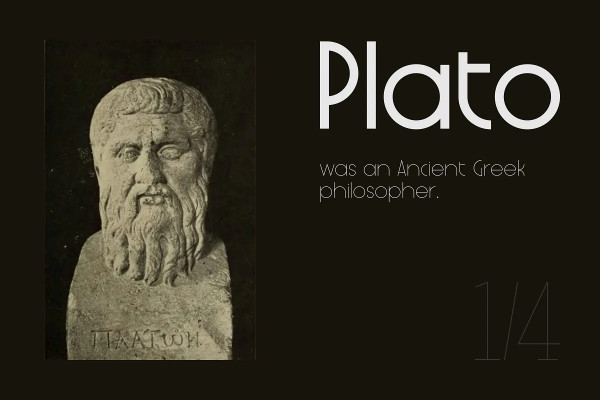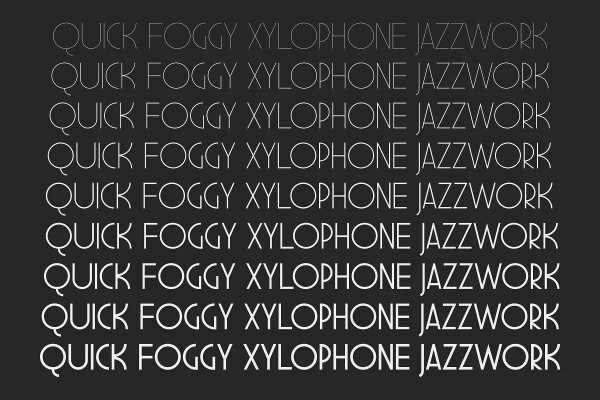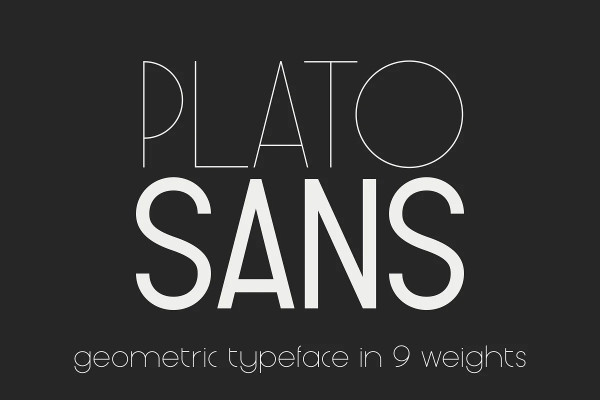
Plato Sans Font
Plato Sans Font is an elegant and minimalistic typeface designed mainly for display use. It’s perfect for magazine and book covers, posters and branding. It can also be used on short texts.